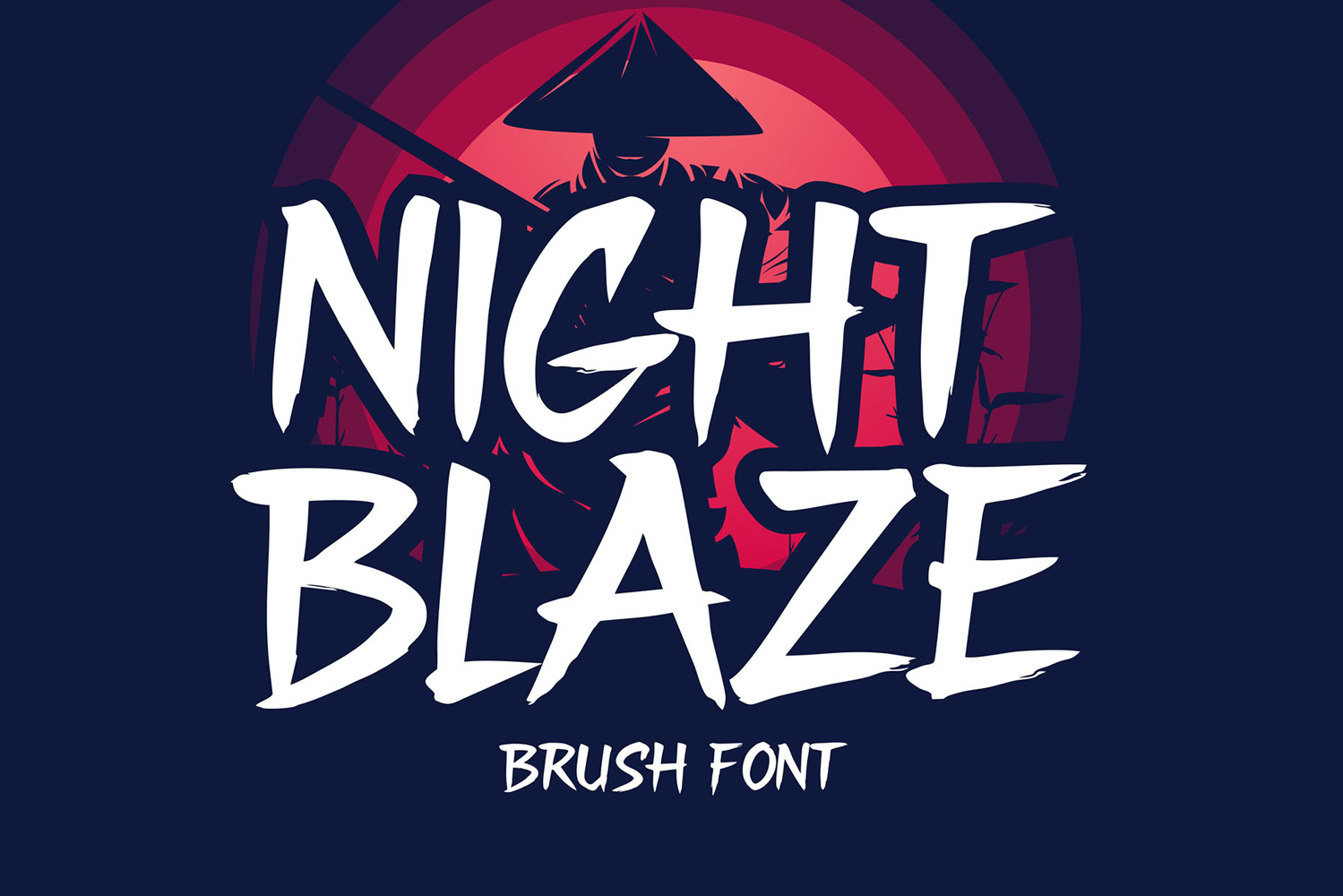
Night Blaze | Brush Font for Bold Design
Night Blaze
Night Blaze is a bold and energetic brush font that brings the heat of the night into your designs. With dynamic strokes and raw edges, this font captures a strong hand-painted feel that screams attitude and confidence. Whether you’re working on a poster, logo, apparel design, or action-themed headline, Night Blaze stands out with its rebellious and expressive style.
Inspired by street art, samurai energy, and comic-style action, Night Blaze is perfect for modern branding, gaming content, extreme sports themes, or edgy social media graphics. The aggressive texture and powerful presence make this brush font your new go-to for creative impact.